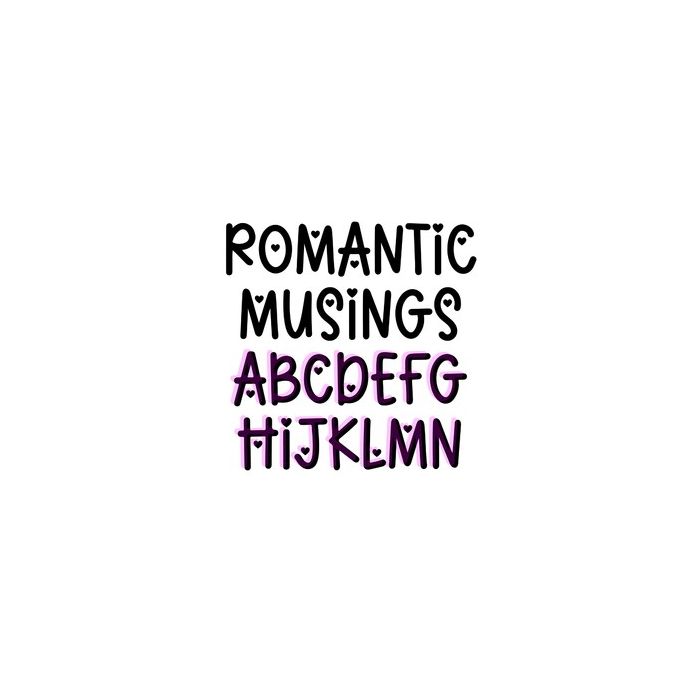
Romantic Musings is a handwritten Valentine's Day font with hearts. Use caps for plain characters. This font is a hearts version of Backyard Haystacks.